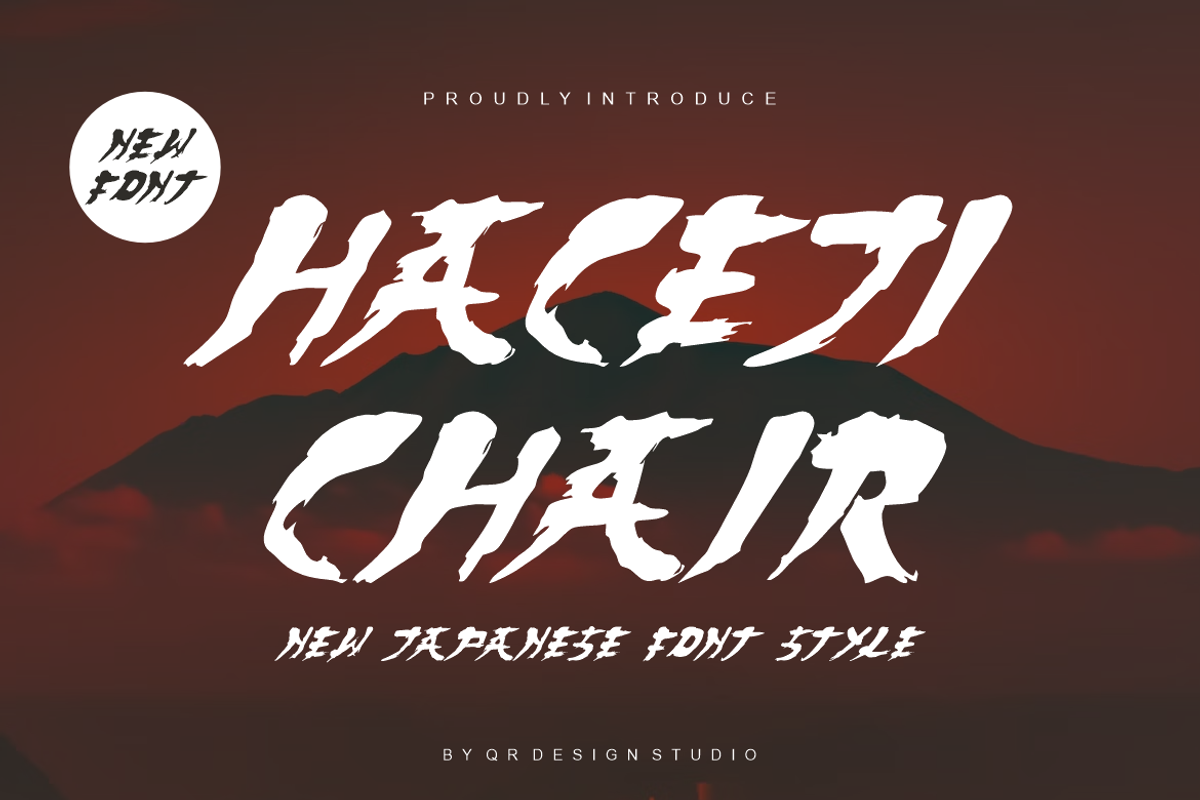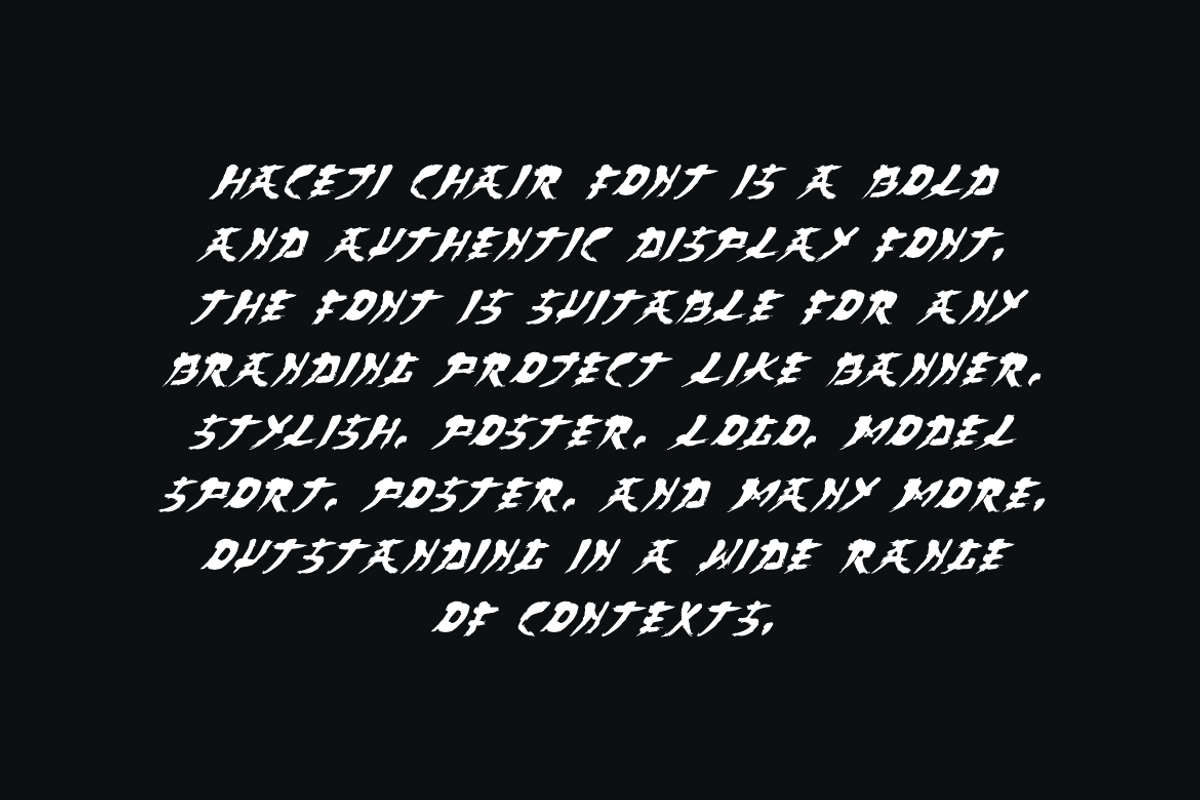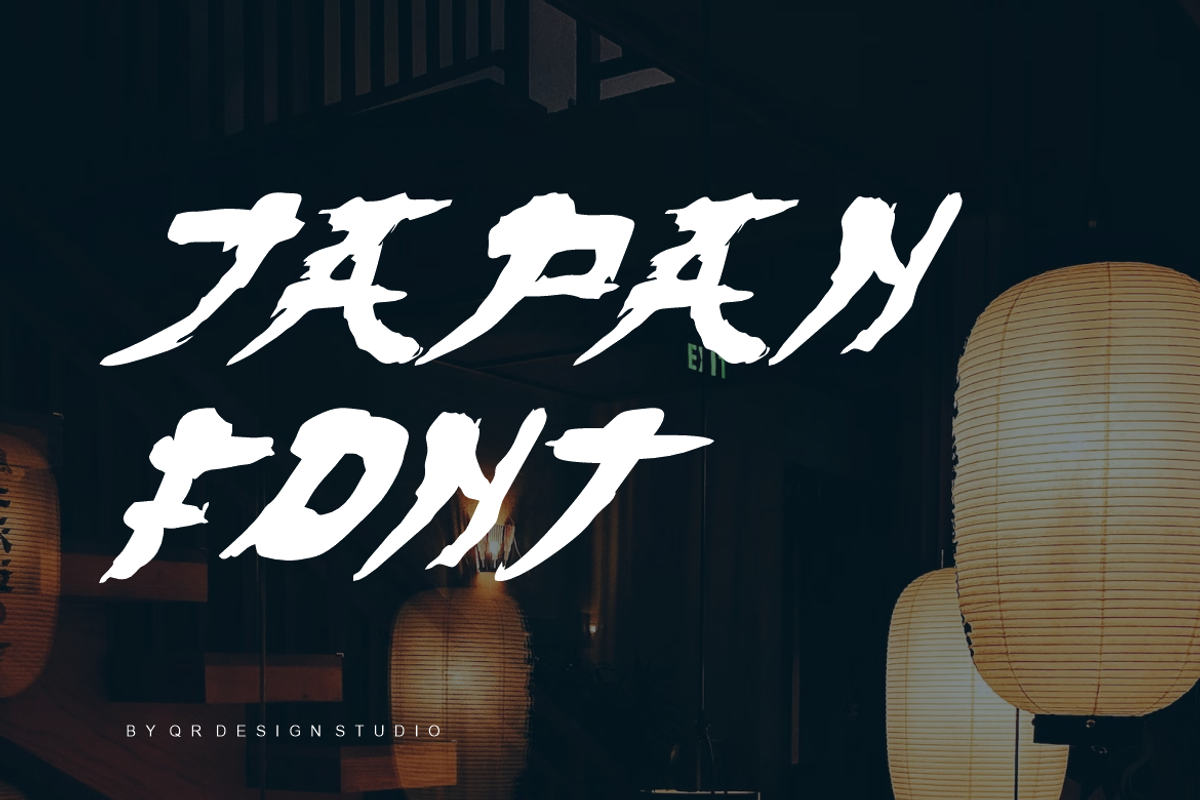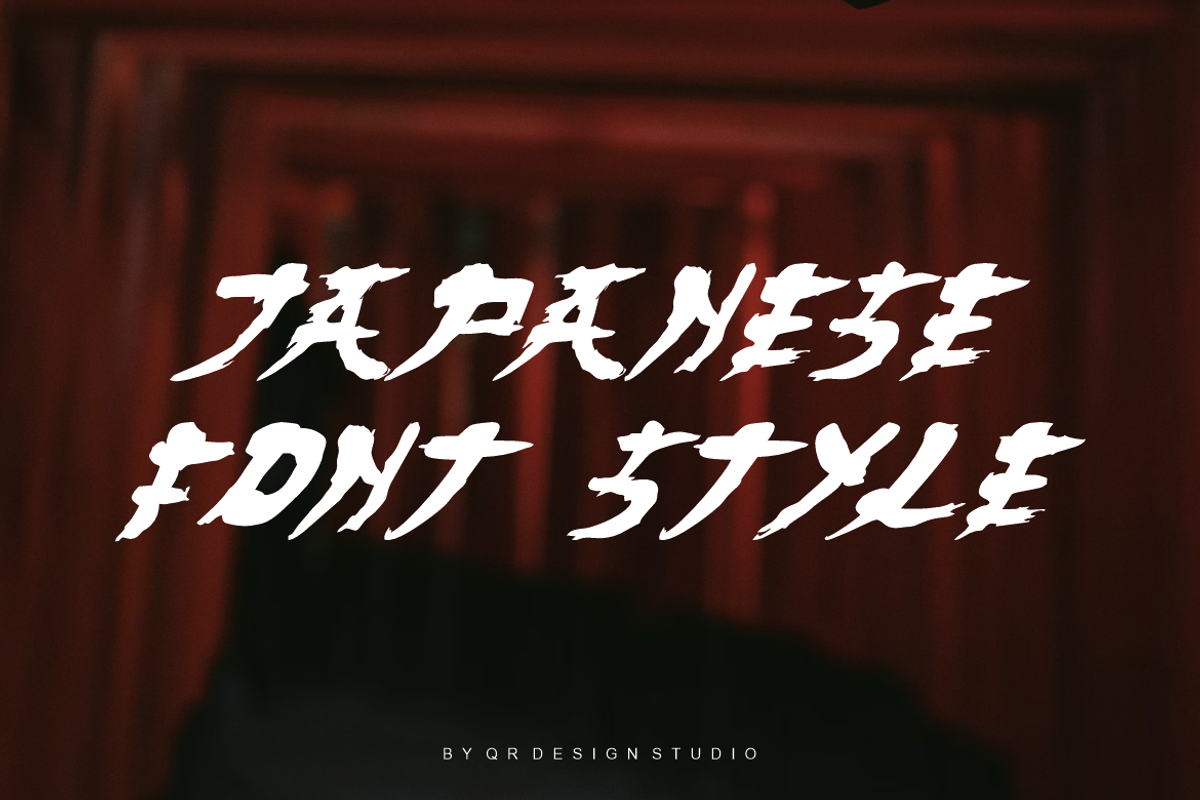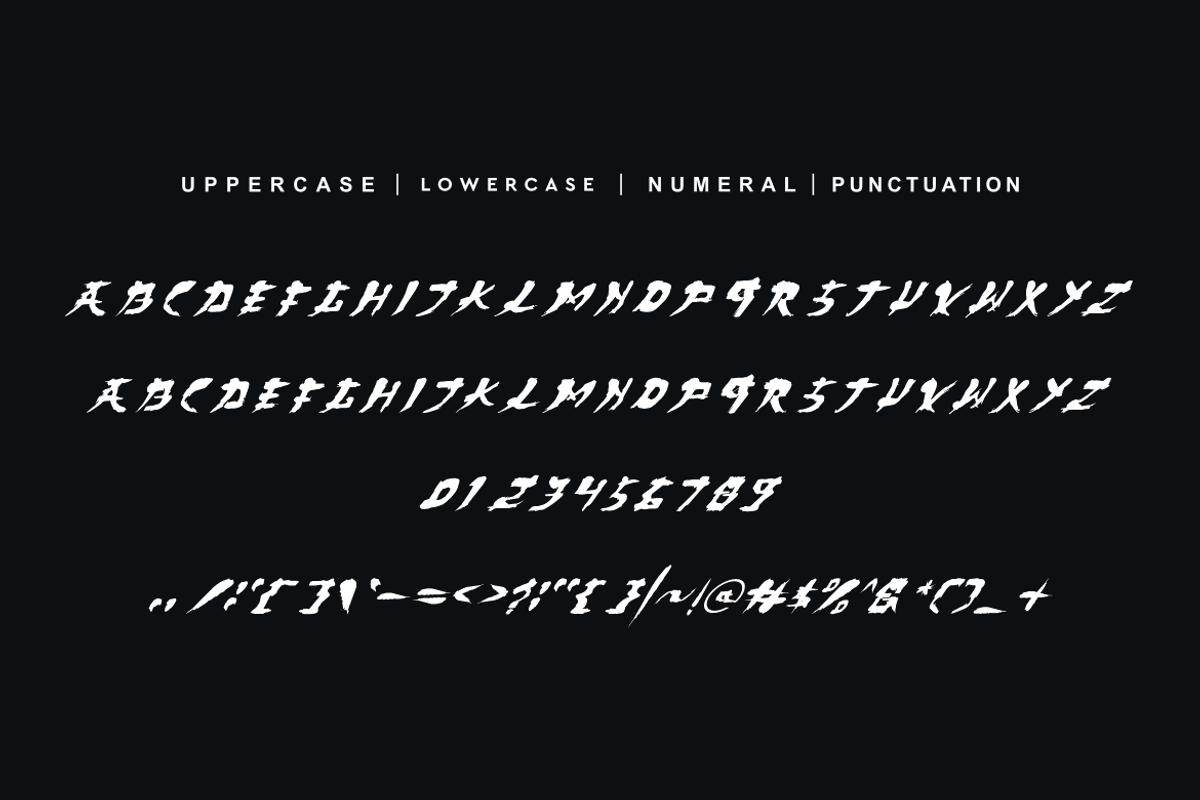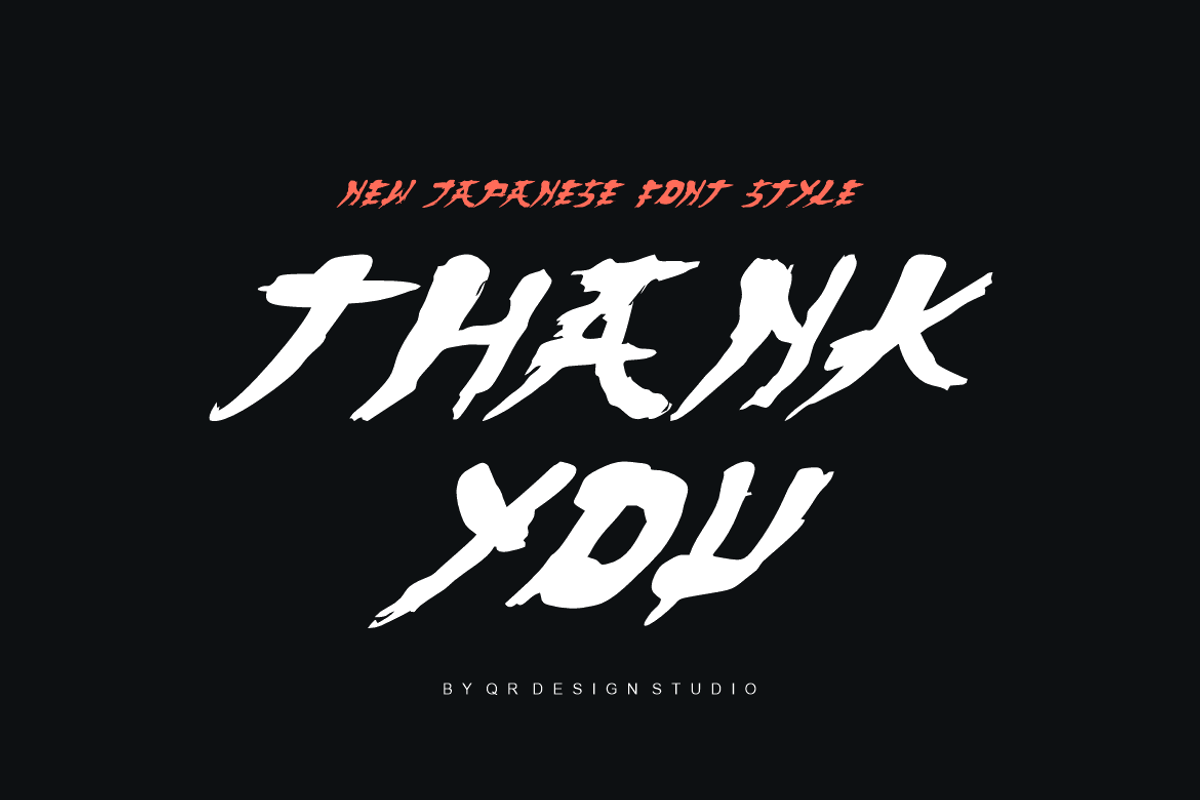
Haceji Chair - Japanese Font
Haceji Chair - Japanese font is a bold and authentic display font. The font is suitable for any branding project like poster, japanese style, your brand, logo, sport, and many more. Outstanding in a wide range of contexts.